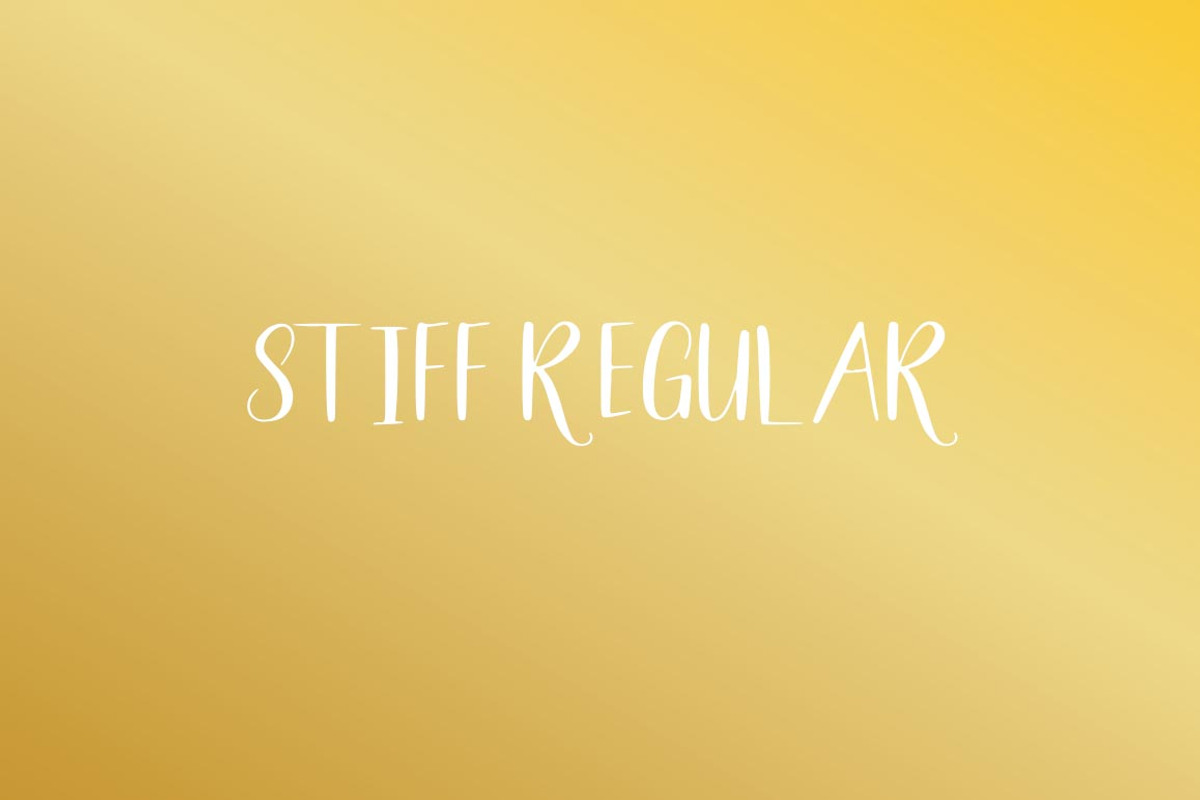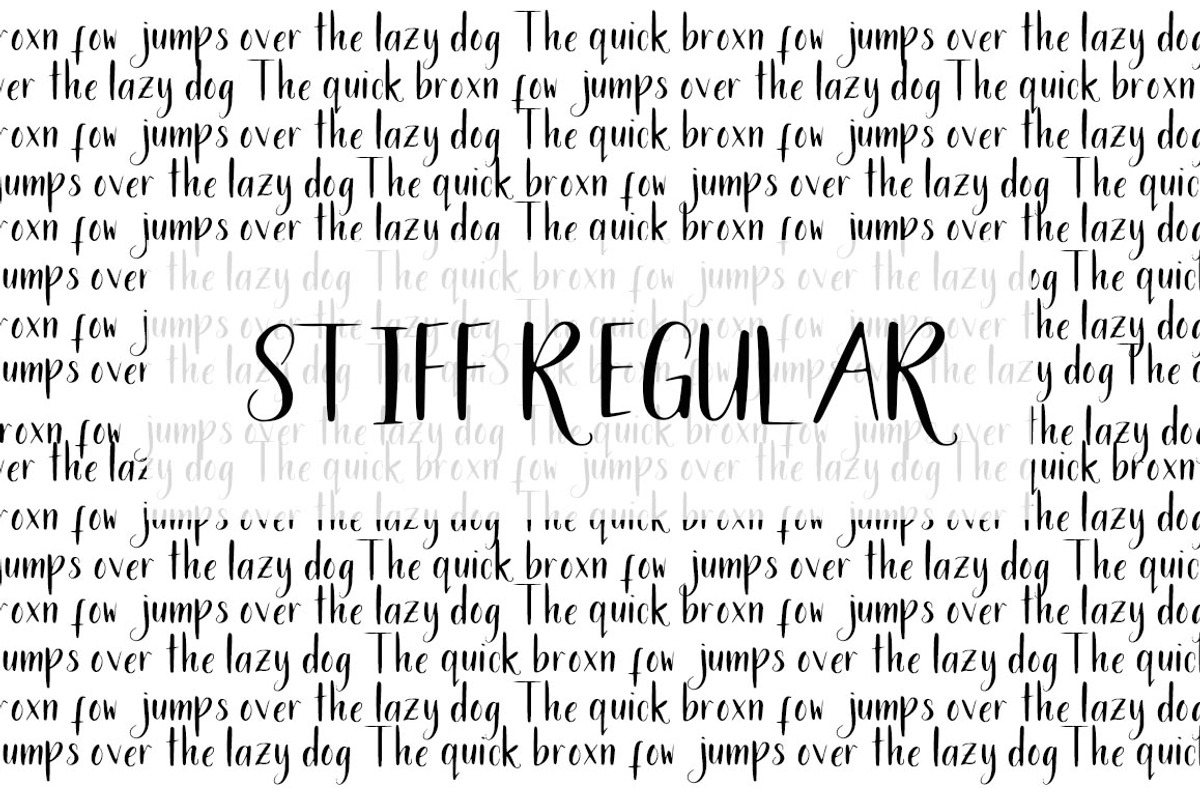
Stiff Regular Font
Stiff font is perfect for casual and playful design.
Why Stiff Regular Font is worth a look
Stiff Regular Font by clevidor fits naturally into Branding, posters, packaging, typography.